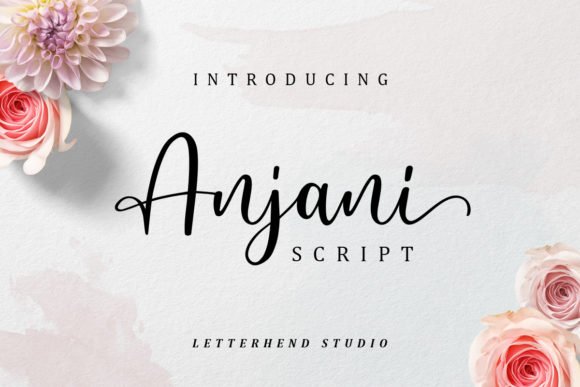
The Perfect Brushstroke for Your Next Design Project
Imagine you’re a designer, and you’re working on a project that requires a touch of elegance and sophistication. You’re browsing through font options, and suddenly, you stumble upon the perfect brushstroke. It’s not just any font, but a modern handwritten masterpiece that sets the tone for your entire design. Welcome to the world of Anjani Script Font, a stunning font that’s sure to elevate your creative work.
Anjani Script Font is more than just a font – it’s a tool that can bring your design to life. With its wide range of characters, including uppercase and lowercase letters, punctuations, symbols, and numerals, you’ll have everything you need to create stunning visual content. Whether you’re a professional designer or a creative enthusiast, Anjani Script Font is a valuable addition to your design arsenal.
Anjani Script Font Key Features
- Unique Characteristics: Anjani Script Font boasts a beautiful, elegant, and intricate design, featuring a unique blend of traditional and modern elements. Its distinctive flair and flowing lines make it perfect for adding a touch of sophistication to any design project.
- Design Style: The font’s design style is characterized by its elegant, cursive script, with subtle flourishes and ornaments that add to its visual appeal.
Anjani Script Font Review
I recently had the chance to work with Anjani Script Font, and I must say it’s a beautiful addition to any design project. ✨ The flowing connections between the letters and the elegant flourishes make it perfect for creating a sophisticated and luxurious feel. ✨ The font’s versatility also makes it suitable for a wide range of applications, from wedding invitations to high-end branding materials.
However, I do have a few concerns about Anjani Script Font. ⚠️ One of the main limitations is its readability at smaller font sizes. ⚠️ The intricate details and connections between the letters can make it difficult to read in certain contexts. Additionally, the font may not be suitable for body text, as it can be quite time-consuming to typeset.
Here are some key pros and cons of Anjani Script Font:
- ✨ Beautiful, elegant design
- ✨ Versatile and suitable for various applications
- ⚠️ Limited readability at smaller font sizes
- ⚠️ Not suitable for body text
Overall, I think Anjani Script Font is a great choice for designers who want to add a touch of luxury and sophistication to their projects. Just be mindful of its limitations and use it accordingly.
Tips for Getting the Most Out of Anjani Script Font
Use Anjani Script Font for titles, headings, and short text passages to add a touch of elegance and sophistication. Pair it with a clean, modern font for body text to create a visually appealing contrast.
Anjani Script Font is ideal for:
– Branding and logo design
– Event and party invitations
– Luxury product packaging and labeling